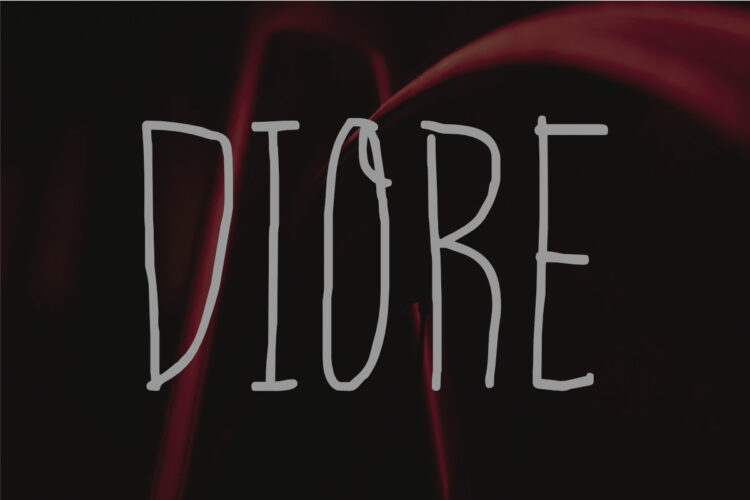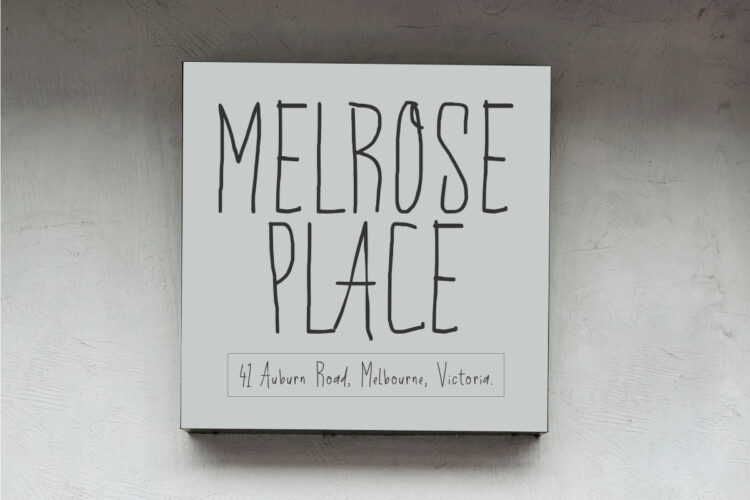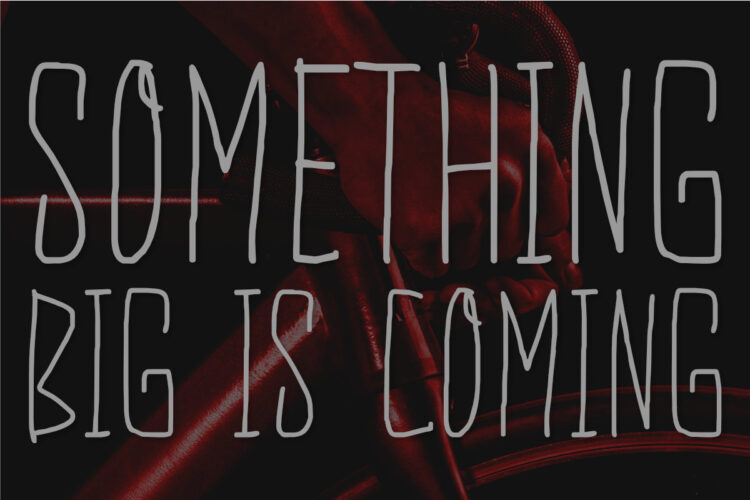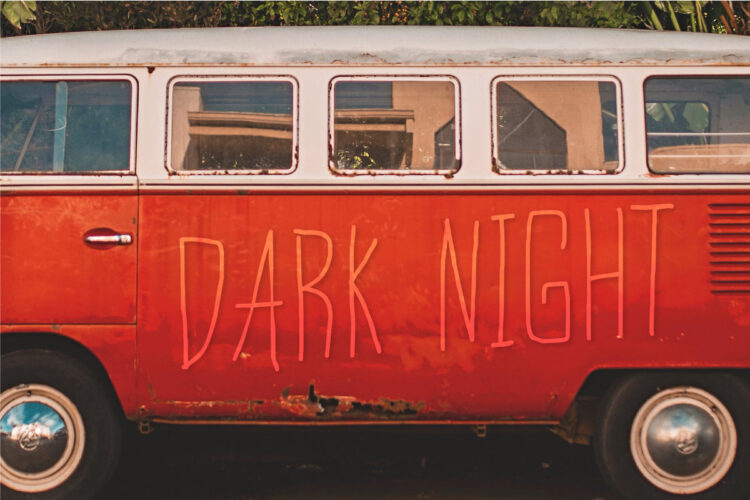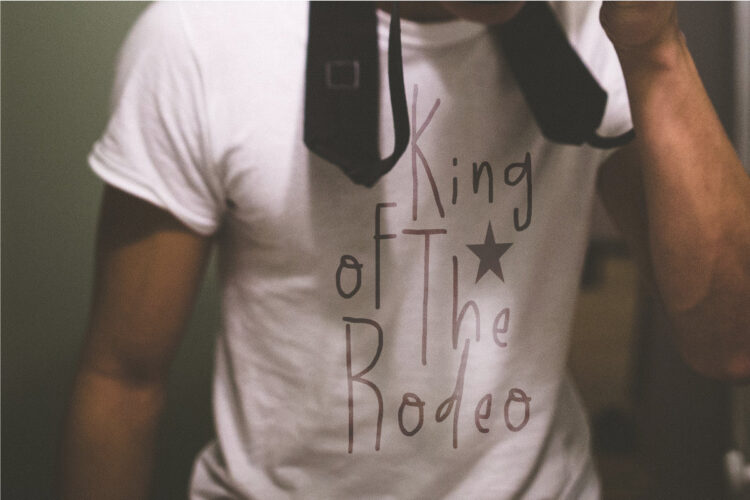
Meet Diore, a fun and playful handwritten font. It adds a unique and charming touch to your designs, with each stroke having its personality. Use Diore in a range of projects, from social media graphics to website banners, – giving you so many creative possibilities.